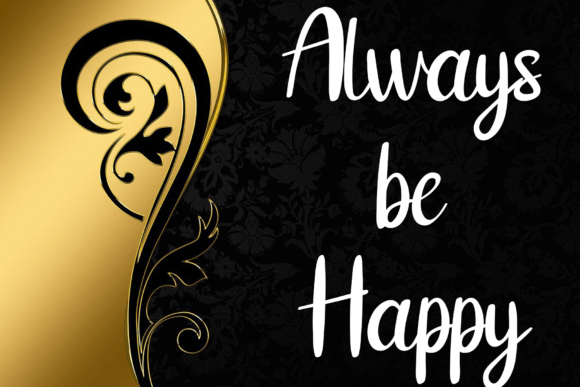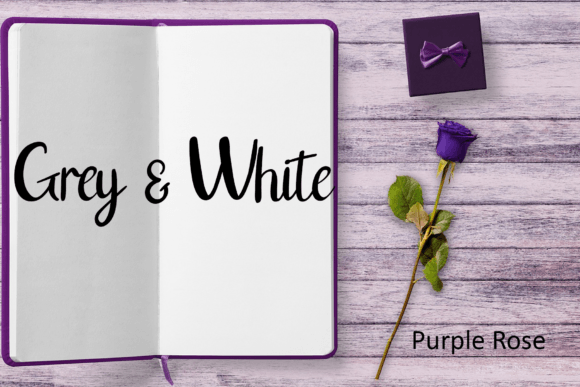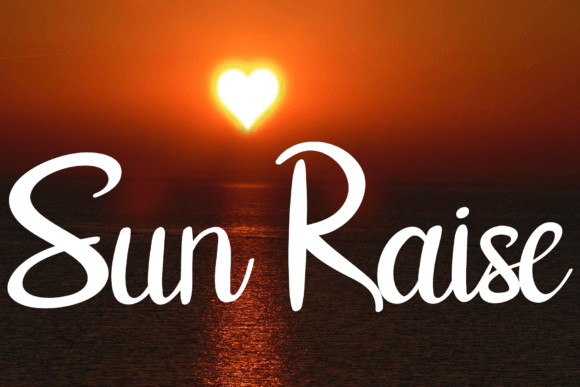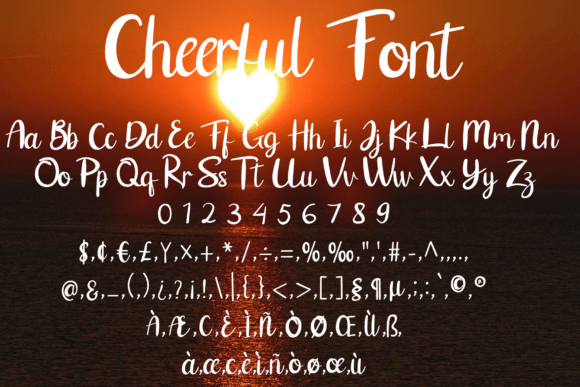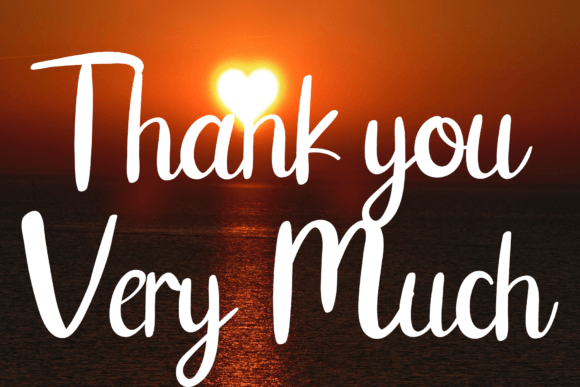
Introducing Cheerful Font: Elevate Your Designs with Elegance and Flair
Are you on the hunt for a font that exudes sophistication, elegance, and a touch of playfulness? Look no further than Cheerful Font, a stunning handwritten typeface that’s sure to take your projects to new heights. With its unique blend of classic calligraphy and modern flair, Cheerful Font is the perfect choice for designers, crafters, and anyone looking to add a dash of personality to their work.
The Characteristics of Cheerful Font
So, what makes Cheerful Font so special? For starters, its elegant and flowing design features varied baselines and smooth lines that give it a distinctly organic feel. This font is the epitome of refined elegance, with a classy calligraphic influence that’s balanced by a contemporary and fresh aesthetic. Whether you’re working on a logo, branding materials, or a craft project, Cheerful Font is sure to bring a touch of sophistication and whimsy to your design.
Why Choose Cheerful Font?
There are countless fonts available to designers and crafters, but Cheerful Font stands out from the crowd for several reasons. Here are just a few of the benefits of choosing Cheerful Font for your next project:
- Elegant and Refined: Cheerful Font boasts an undeniable air of sophistication, making it perfect for high-end branding, luxury goods, and refined crafts.
- Versatile: With its unique blend of classic and modern elements, Cheerful Font can be used in a wide range of applications, from formal events to playful crafts.
- Easy to Read: Despite its elegant design, Cheerful Font remains highly legible, making it suitable for both headlines and body text.
- Contemporary and Fresh: Cheerful Font’s modern twist ensures that your designs will feel current and on-trend, even if you’re working on a traditional or vintage-inspired project.
Using Cheerful Font in Your Designs
So, how can you incorporate Cheerful Font into your designs? The possibilities are endless! Here are a few ideas to get you started:
- Logos and Branding: Use Cheerful Font to create a memorable and elegant logo that sets your brand apart.
- Stationery and Invitations: Add a touch of whimsy and sophistication to your stationery, invitations, and greeting cards with Cheerful Font.
- Crafts and DIY Projects: Cheerful Font is perfect for crafters, with applications in journaling, scrapbooking, and other paper crafts.
- Digital Designs: Use Cheerful Font in your digital designs, such as social media graphics, blog headers, and website titles.
Tips for Pairing Cheerful Font with Other Fonts
To get the most out of Cheerful Font, consider pairing it with other fonts that complement its elegant and playful aesthetic. Here are a few tips:
- Pair with Sans Serifs: Combine Cheerful Font with a clean sans serif font for a striking contrast that adds visual interest to your design.
- Match with Script Fonts: Pair Cheerful Font with other script fonts for a cohesive and elegant look that’s perfect for formal events or luxury brands.
- Experiment with Serif Fonts: Don’t be afraid to pair Cheerful Font with serif fonts for a unique and eye-catching combination that adds depth to your design.
In conclusion, Cheerful Font is a versatile and elegant typeface that’s sure to elevate your designs to new heights. With its unique blend of classic calligraphy and modern flair, Cheerful Font is the perfect choice for designers, crafters, and anyone looking to add a touch of personality to their work. Whether you’re working on a logo, branding materials, or a craft project, Cheerful Font is sure to bring a dash of sophistication and whimsy to your design. So why wait? Fall in love with Cheerful Font and take your projects to the highest level!